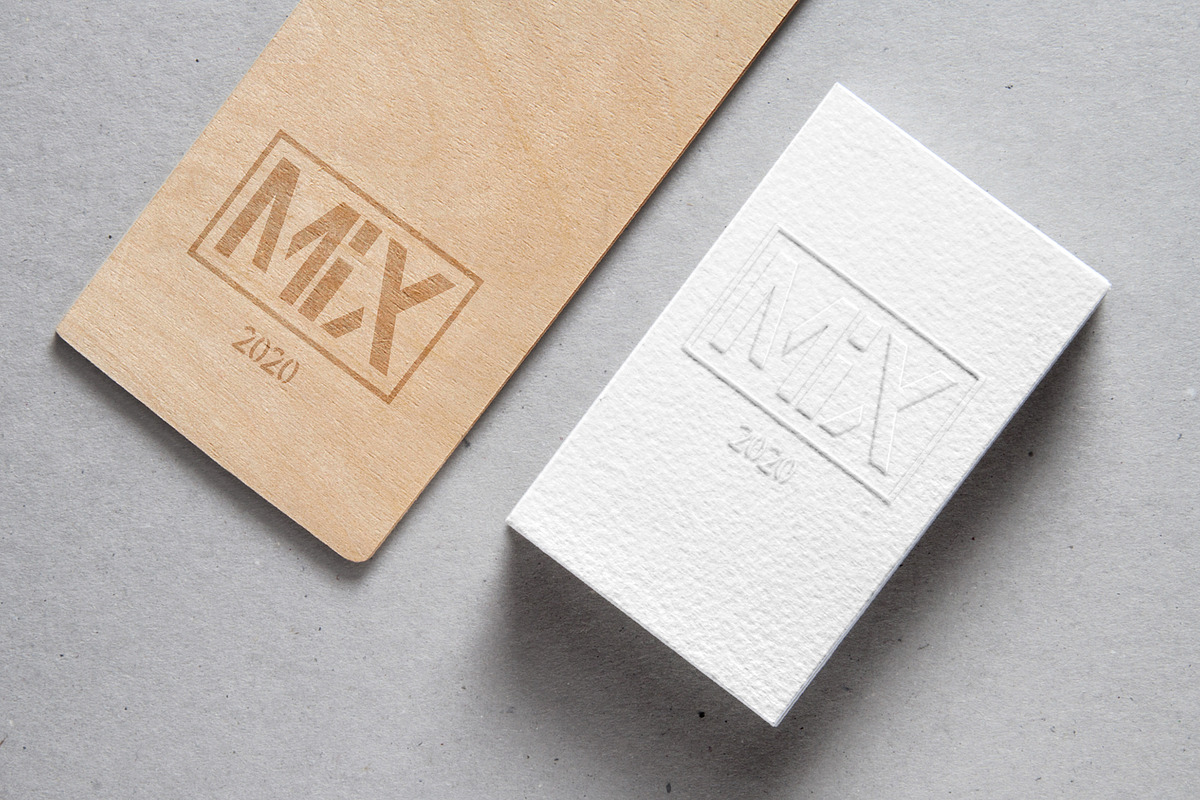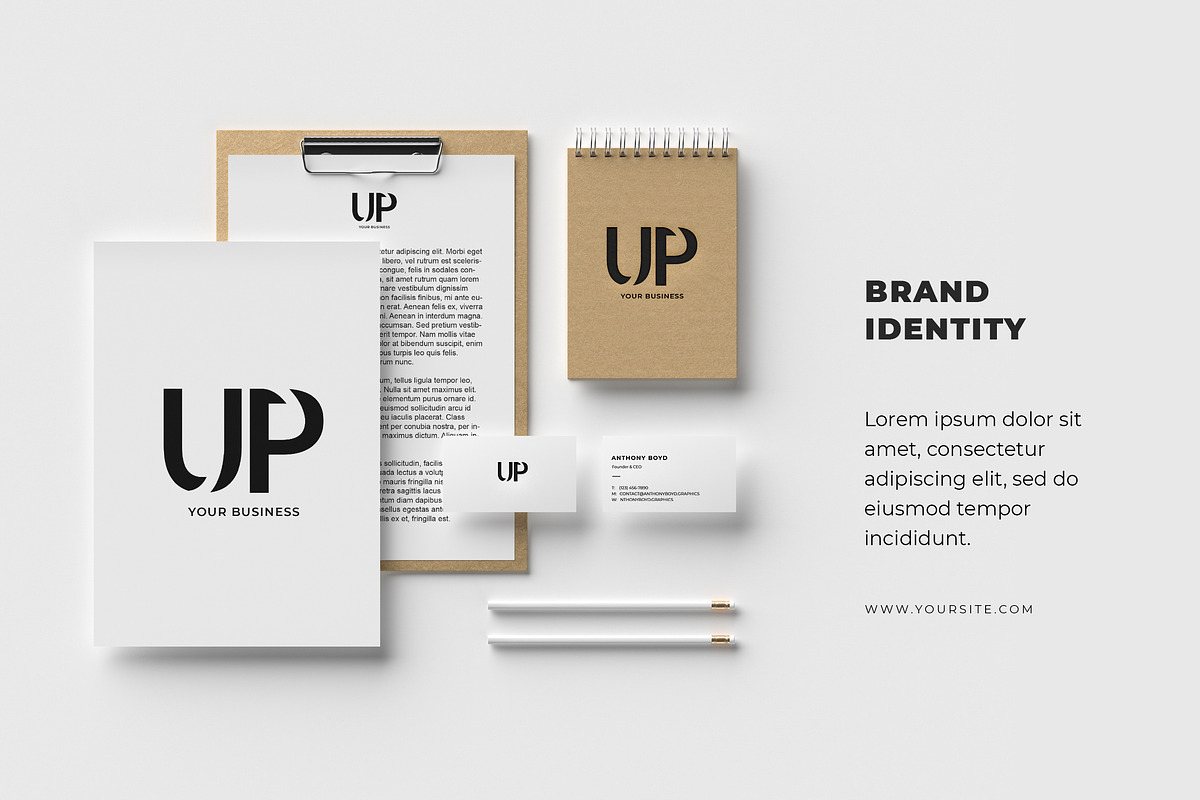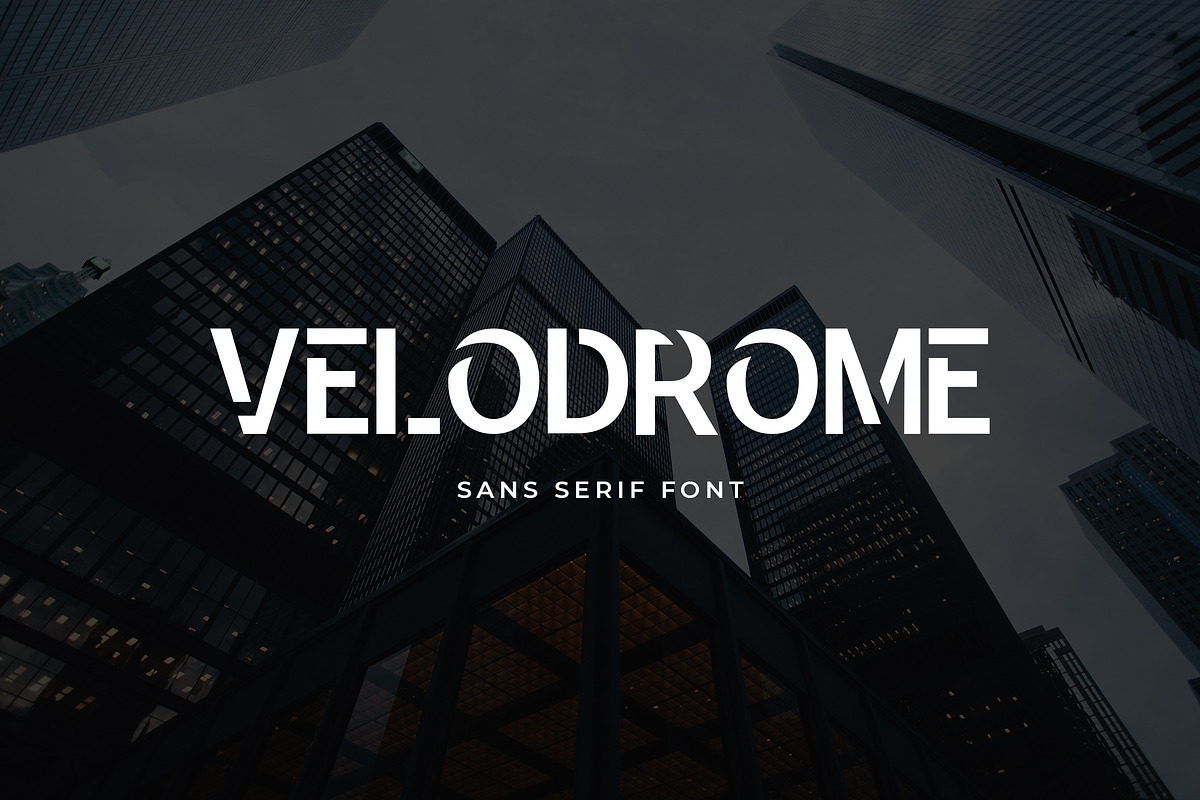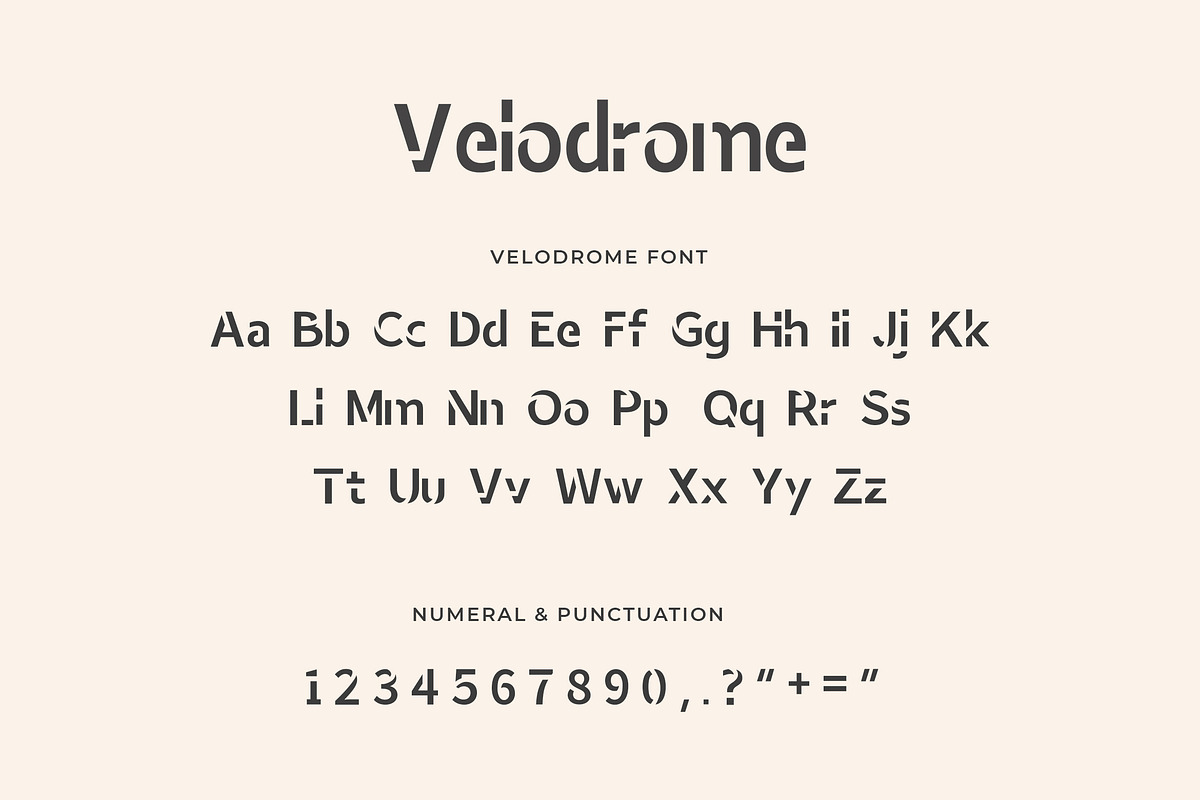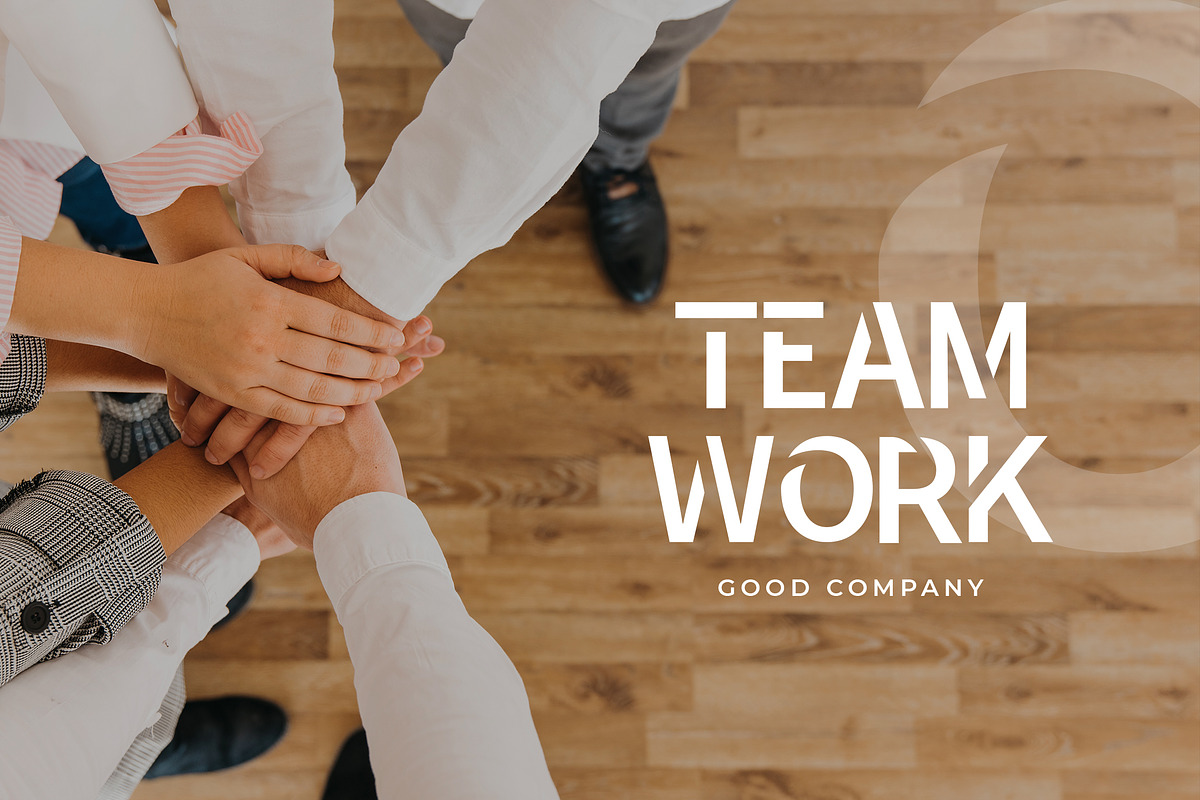
Velodrome Display Font
Velodrome is a elegant and playful display font that’s great for a wide variety of design ideas.
Velodrome Display Font by UICreative fits naturally into Branding, posters, packaging, typography.